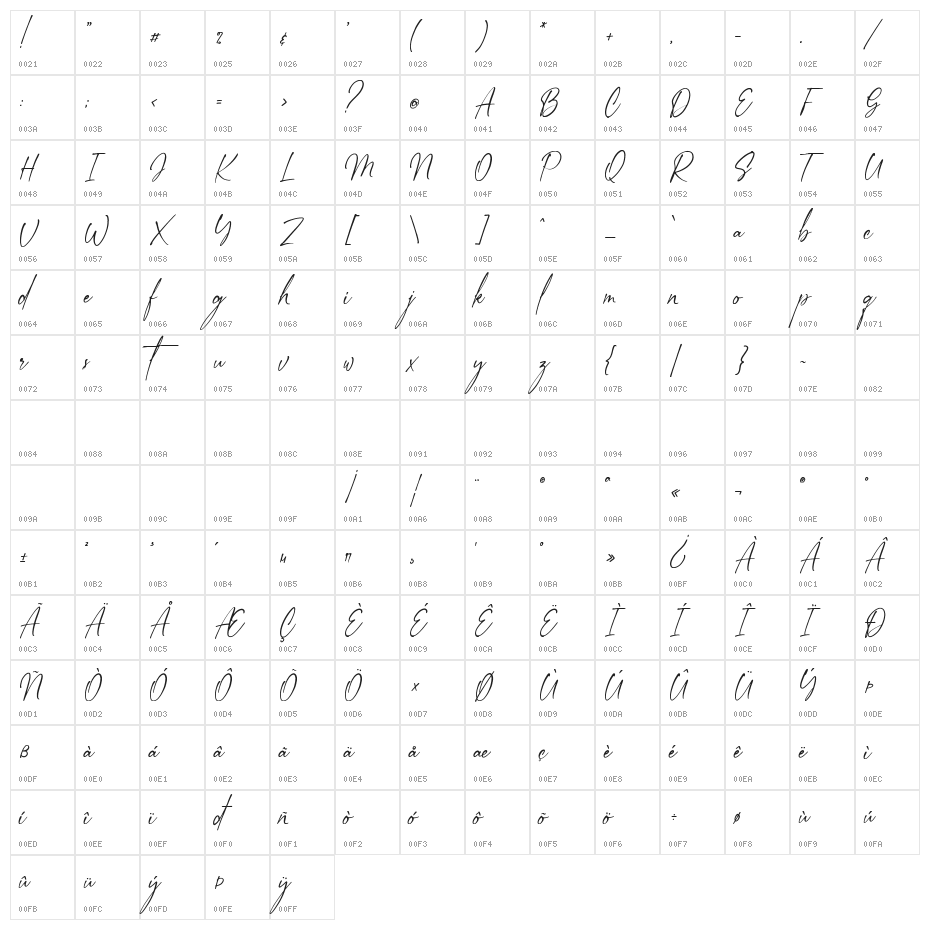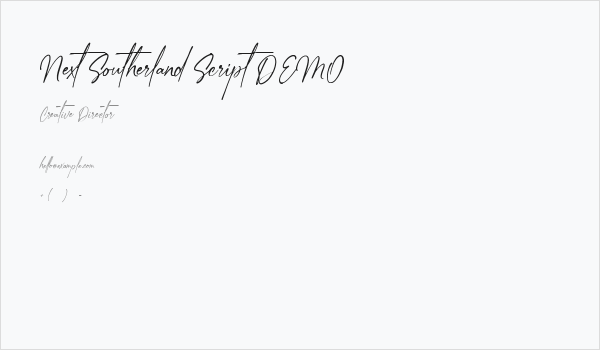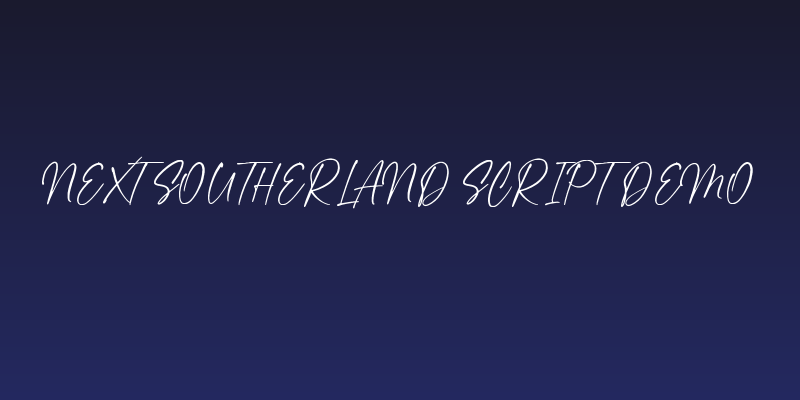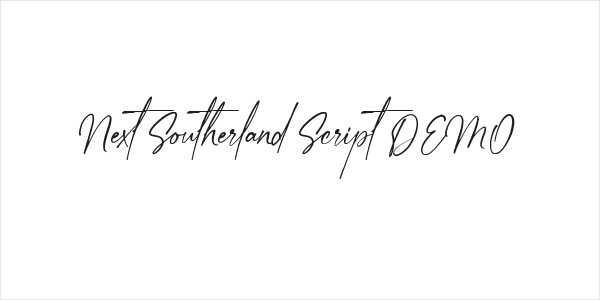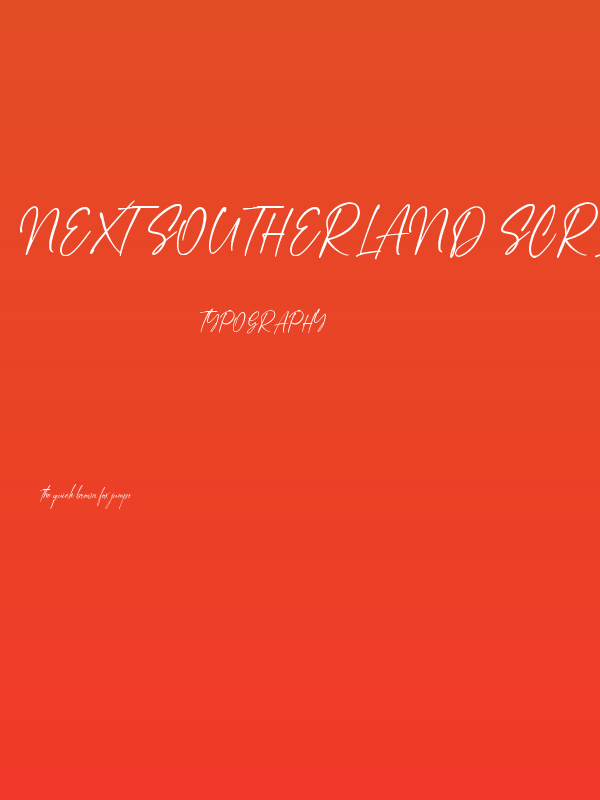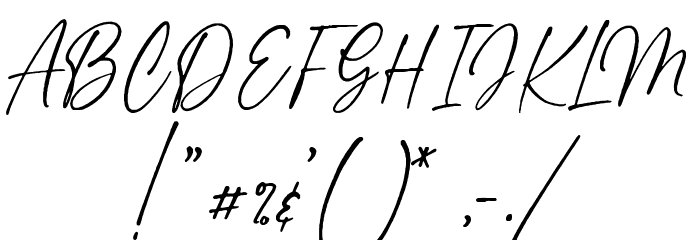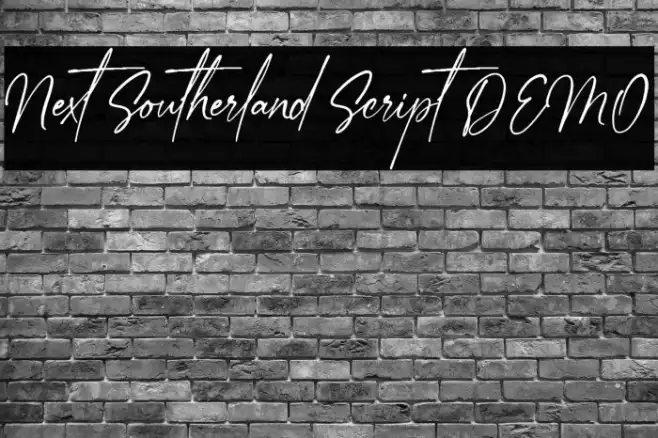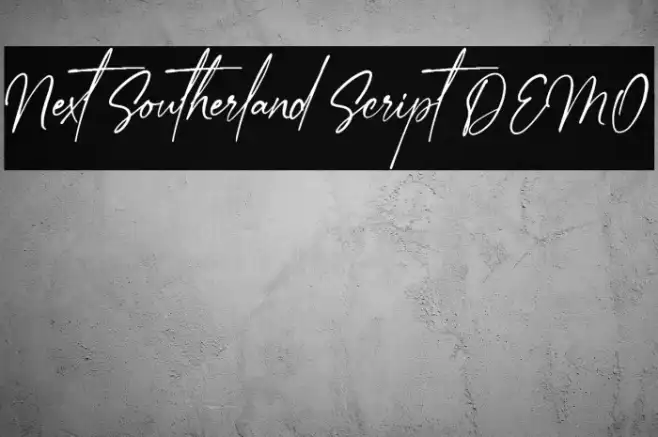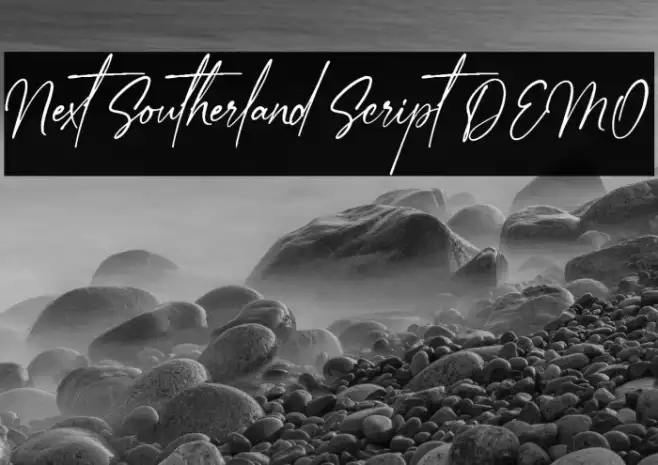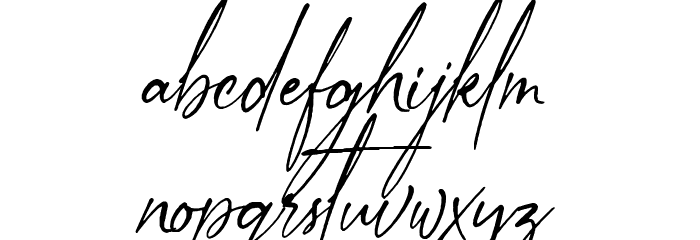
Next Southerland Script DEMO Font
Next Southerland Script DEMO Description
This font exudes a dynamic and elegant script style, characterized by its fluid and cursive letterforms. The uppercase letters are tall and slightly slanted, giving a sense of movement and grace. The lowercase letters are more compact, maintaining the cursive flow with a consistent baseline. The strokes are smooth and connected, with a slight variation in thickness that adds to the handwritten feel. The special characters are integrated seamlessly, matching the overall aesthetic of the font. This script font is ideal for projects that require a personal and artistic touch, such as invitations, greeting cards, and branding materials.